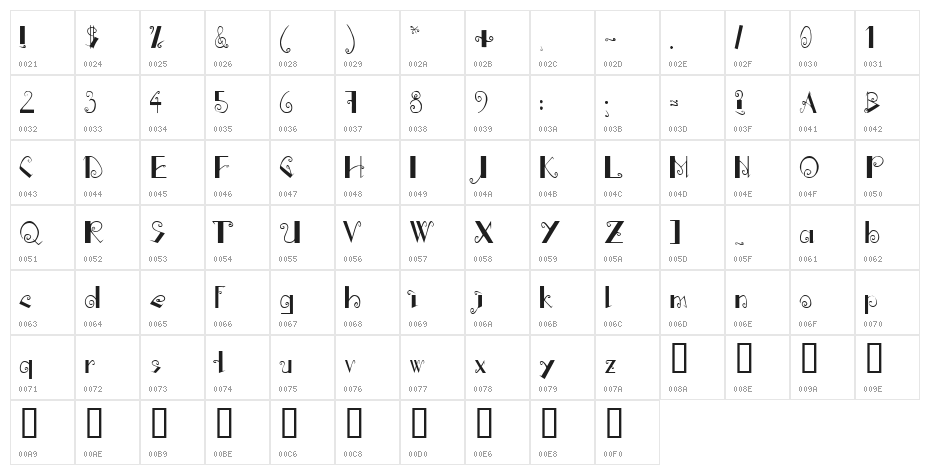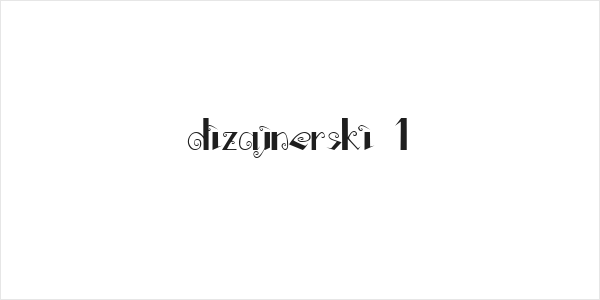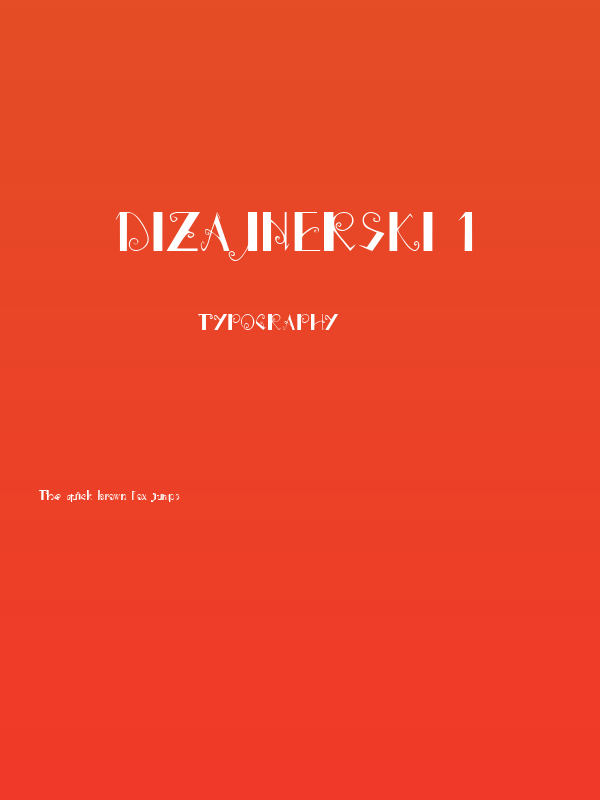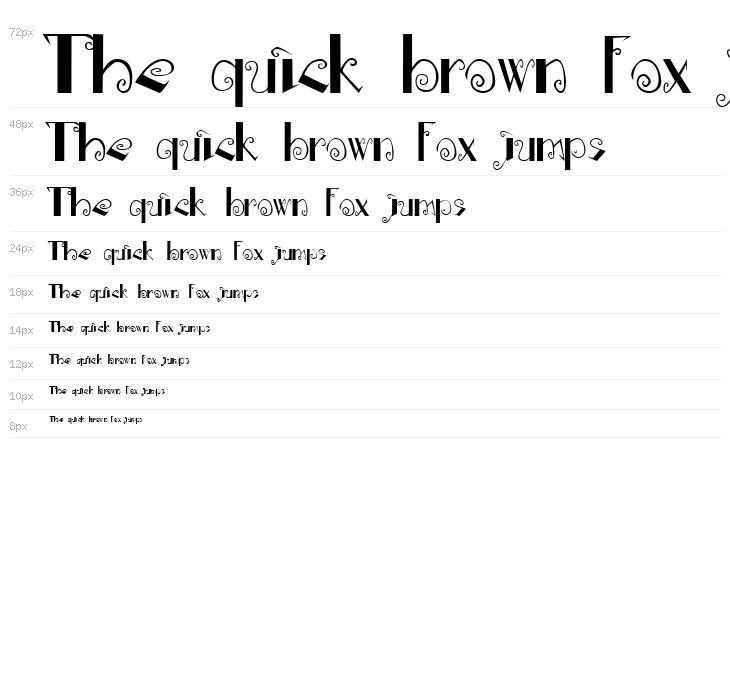
dizajnerski 1 Font
dizajnerski 1 Description
This font features a unique and artistic design with a blend of bold strokes and intricate swirls. The uppercase letters are characterized by decorative curls and sharp angles, creating a dynamic and whimsical appearance. The lowercase letters maintain a similar style, with some characters incorporating playful loops and curves. The numbers are bold and distinct, with a mix of straight lines and rounded elements. Special characters continue the theme with creative embellishments. Overall, this font exudes a sense of creativity and flair, making it suitable for projects that require a touch of elegance and individuality.
| Use Case | Headlines, Logos, Artistic projects |
| Proposed Projects | Ideal for invitations, artistic posters, branding materials, and decorative headings. |